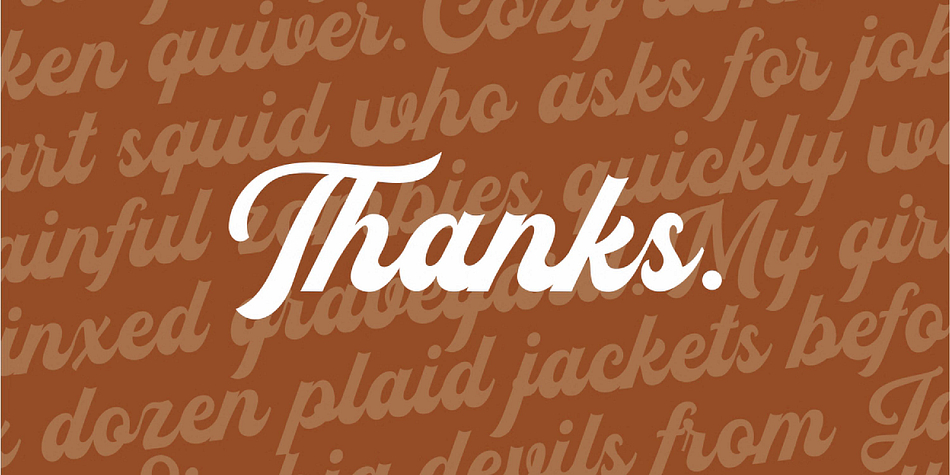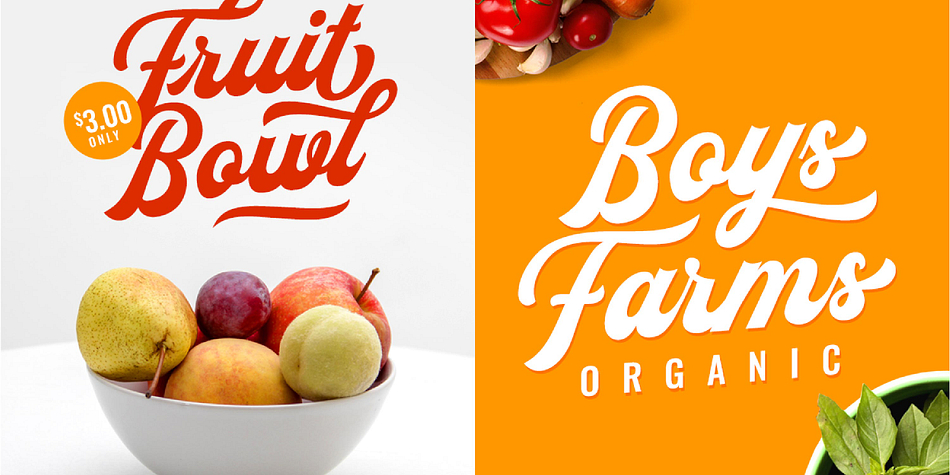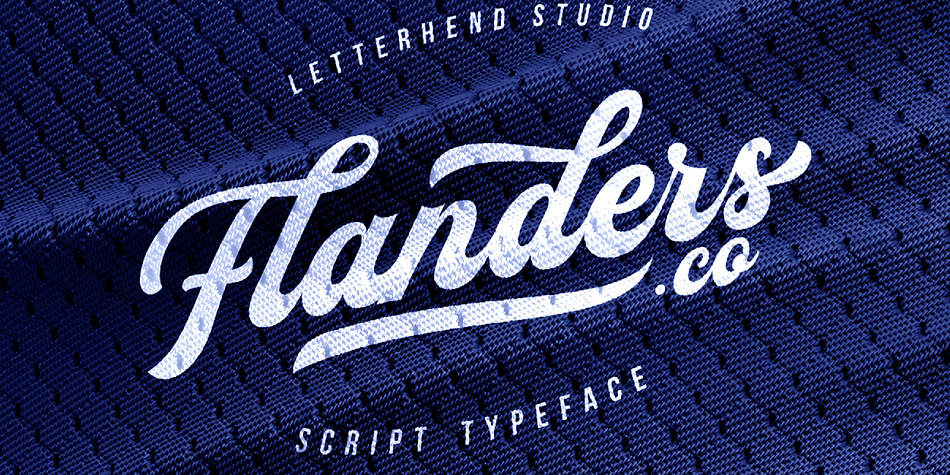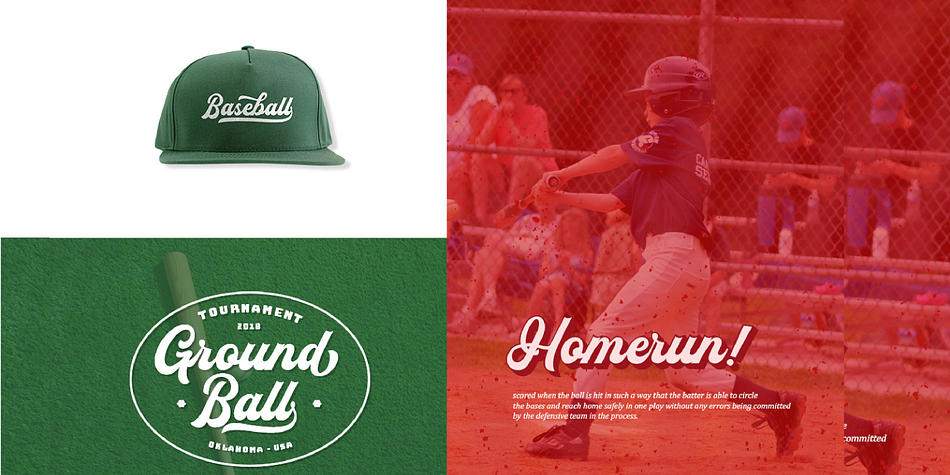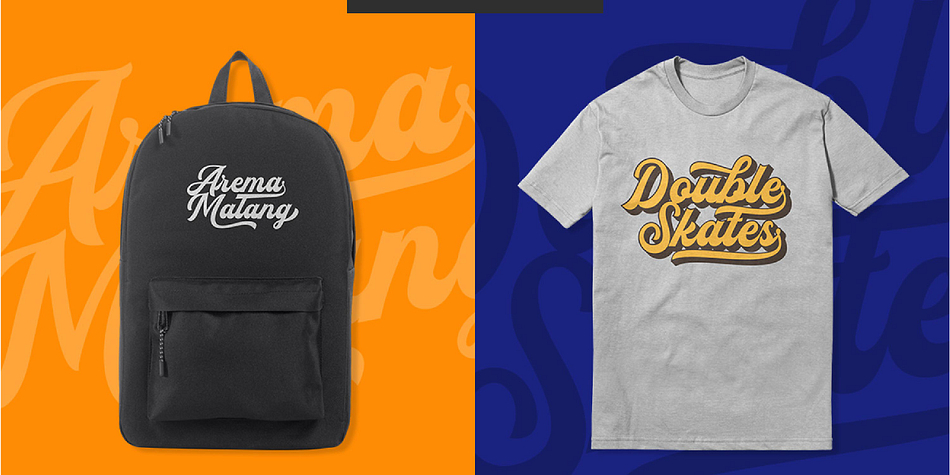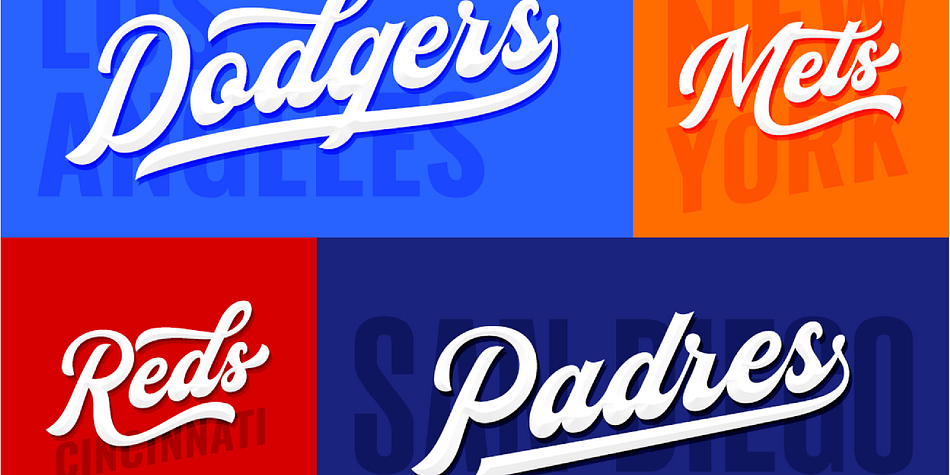
Designed by Hendry Juanda, Flanders Script is a brush script and script font family. This typeface has two styles and was published by Letterhend Studio.
Introducing, Flanders. A bold and modern script that will fulfill your design needs for sporty theme, logotype, quotes, wordmark, etc. This has many opentype features like ligature, stylistic alternate, contextual alternate, swash, etc and support multi language.